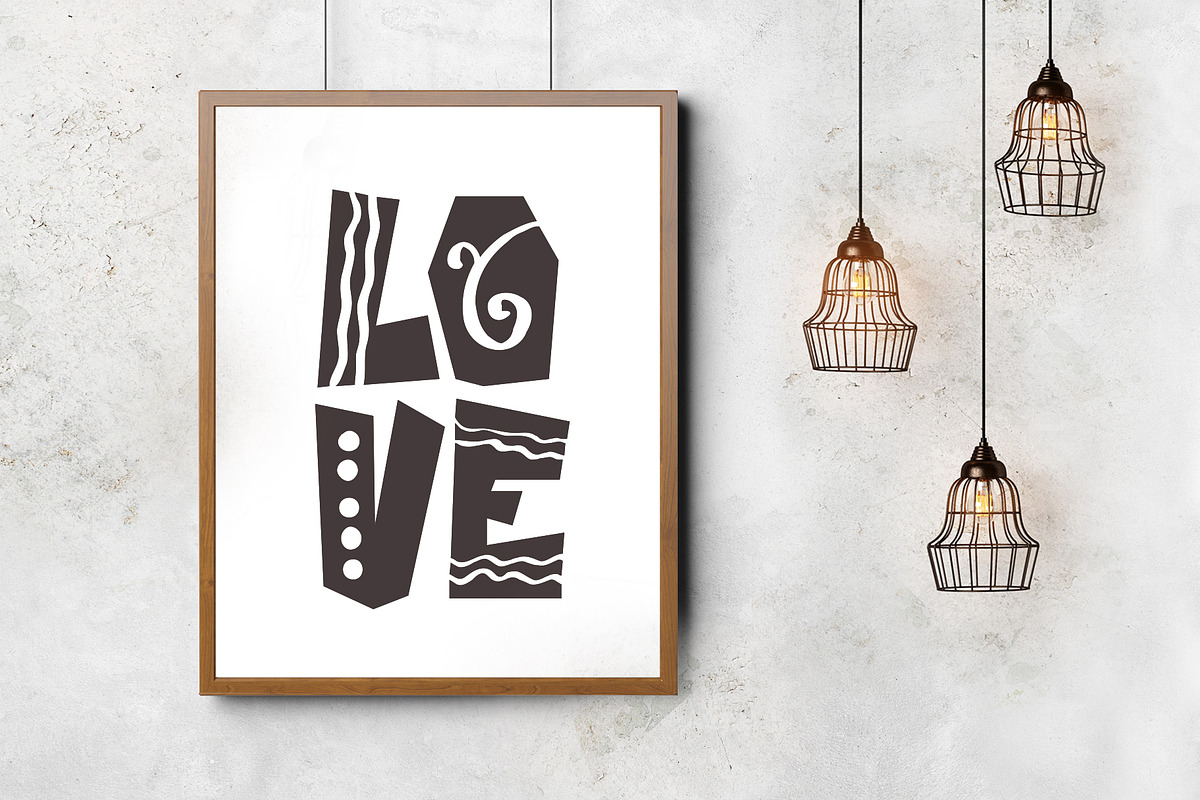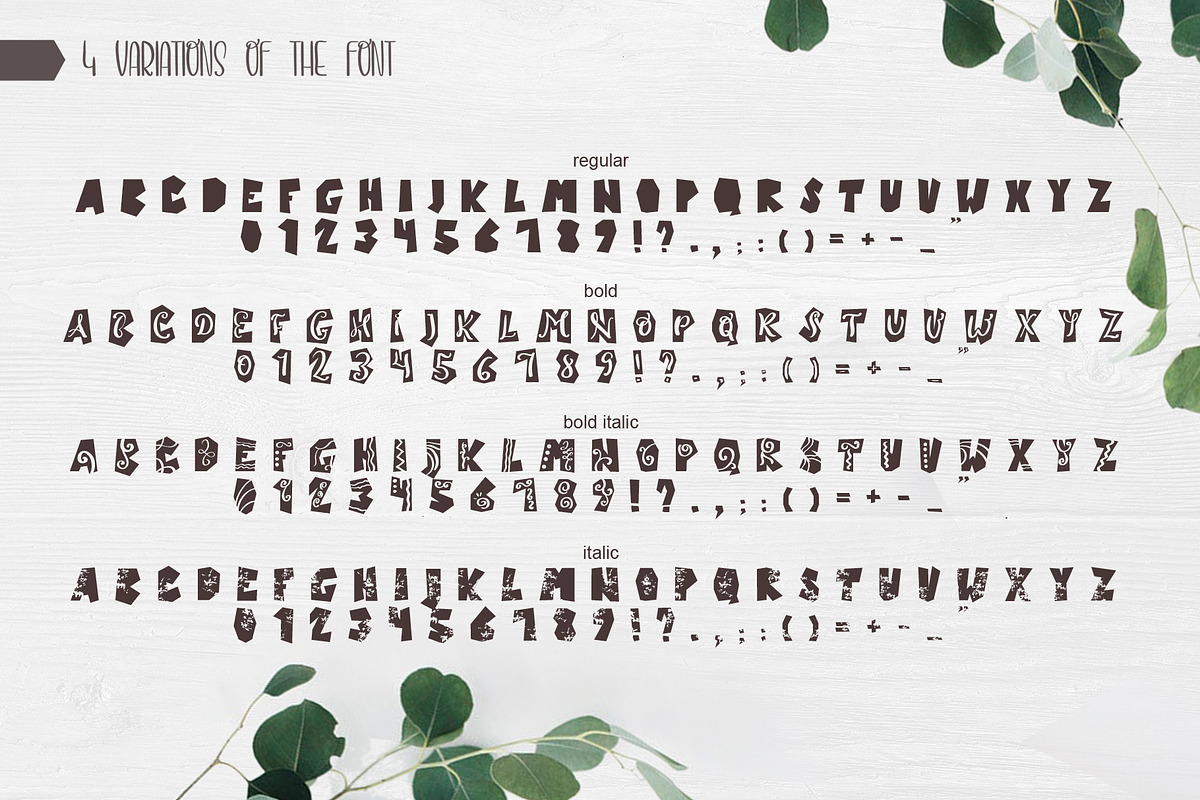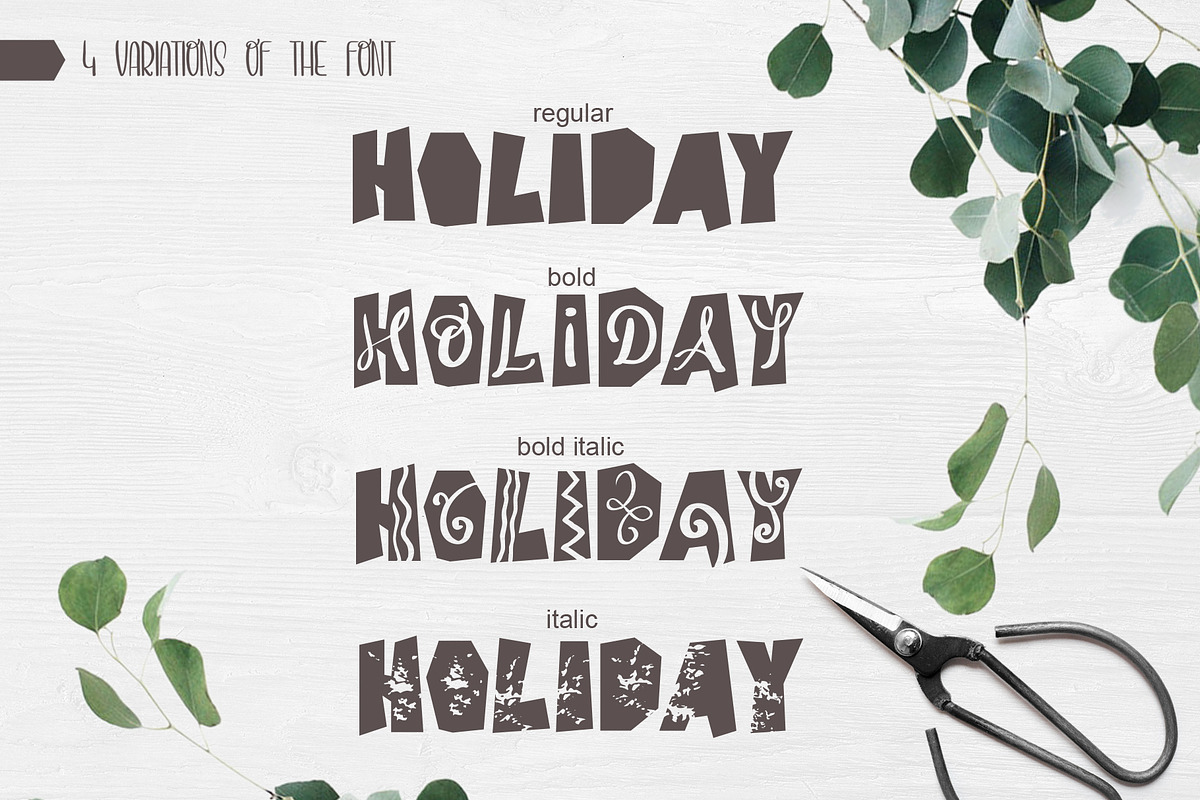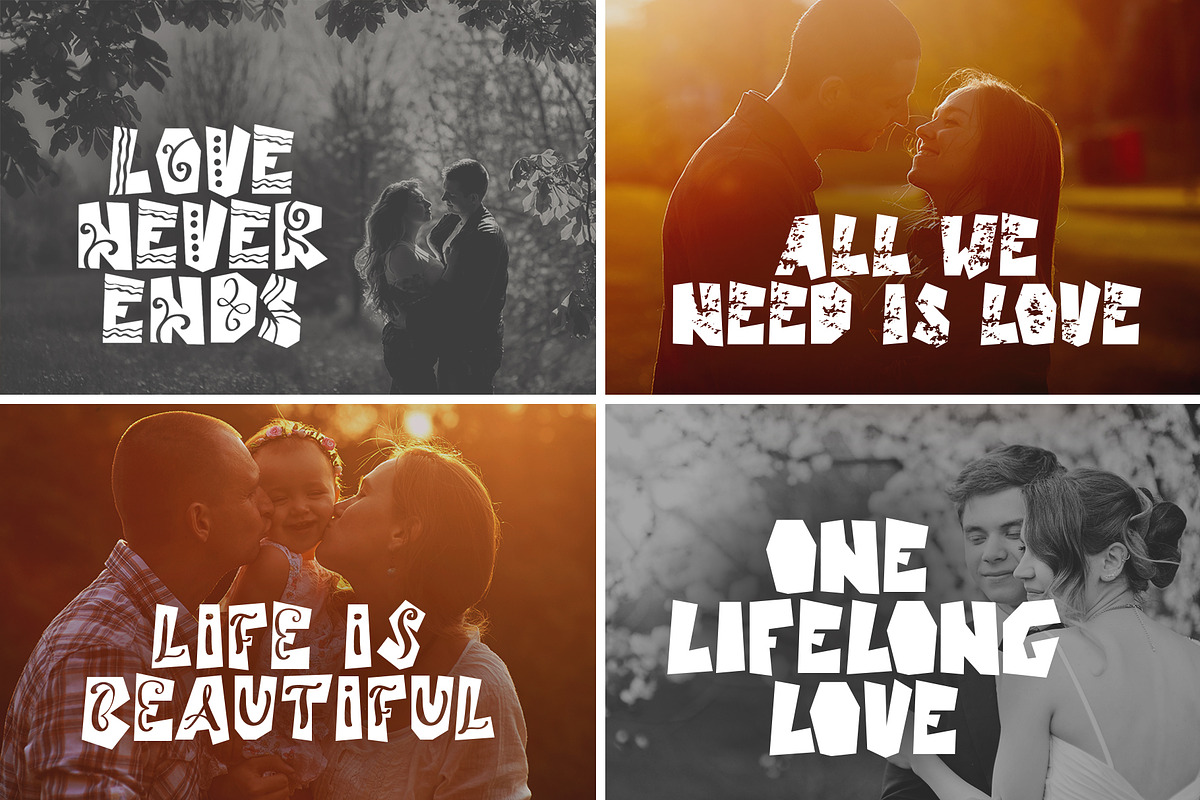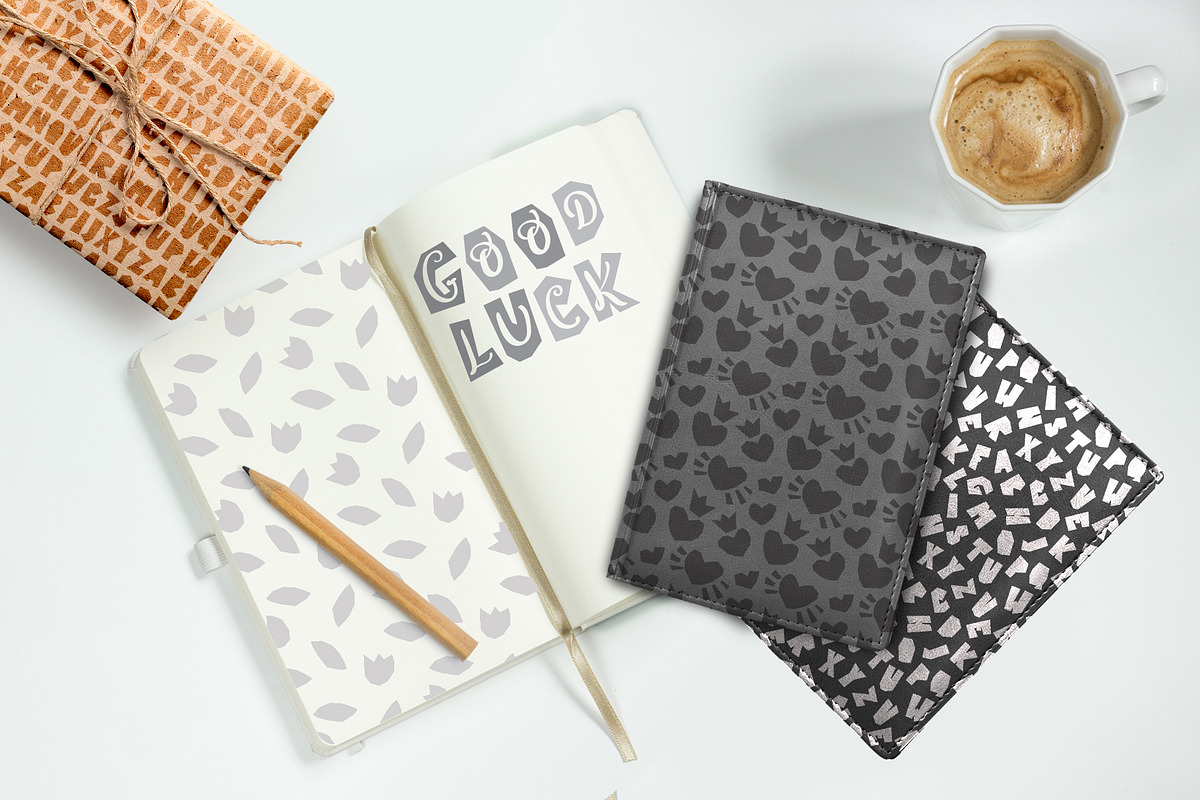
Castillo Scandinavian Font & Pattern
A striking antique modern display font in four styles. Castillo is the font is to help yourself while enjoying the world.
Castillo Scandinavian Font is Regular, Italic, Bold and Bold Italic unique handmade font which is well suited for the design of children's books, comics, antique subjects, other.
Titles for children albums, greeting cards (Christmas, Birthday, other holidays), logos, phrases, gift shops, presentation, Pinterest or Instagram.